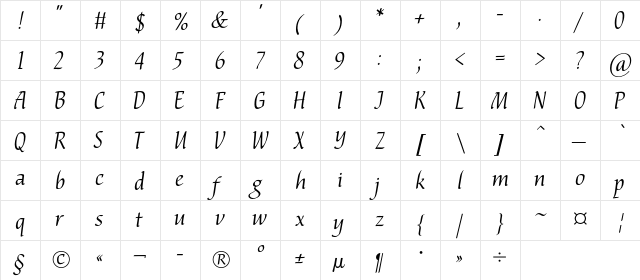
NataliScriptC Regular Font Preview
NataliScriptC Regular
Design Context for NataliScriptC Typeface
NataliScriptC brings a calligraphic fluidity to the page — its connecting strokes and expressive curves give it an unmistakably human quality.
Font Pairing: Combine NataliScriptC with a simple geometric sans for maximum contrast — the tension between flowing curves and clean structure is a classic typographic pairing.
Pro Tip: Use NataliScriptC for short runs of text — names, titles, or taglines. Extended body copy in script faces tires the eye quickly.